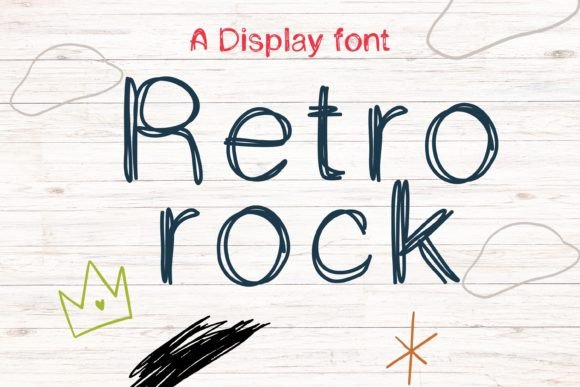
Are you looking for a font that can add a touch of vintage to your projects? Look no further than Retro Rock Font! Created by the talented PJ Fontein, this display font is the perfect addition to any designer's toolkit.
With its lettered designs, Retro Rock is ideal for instructional materials and quotes for chalkboards. Its sweet and basic appearance will give your designs a personalized and realistic feel, making them stand out from the crowd.
But what really sets Retro Rock apart is its versatility. It's not just a great font for vintage designs, it's also the best font for an old map. Imagine your map with Retro Rock font - the intricate details of the map will be complemented by the elegant yet bold Retro Rock typeface.
If you're looking to add some character and style to your designs, Retro Rock is the way to go. Don't settle for generic fonts - stand out with Retro Rock!